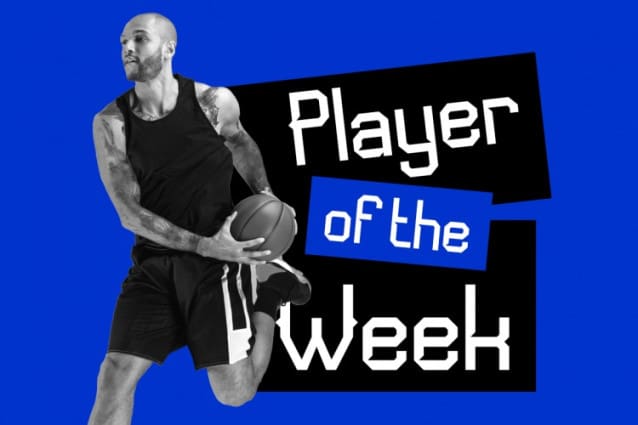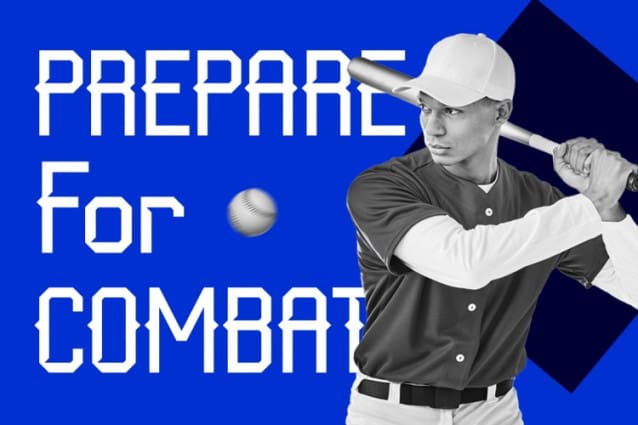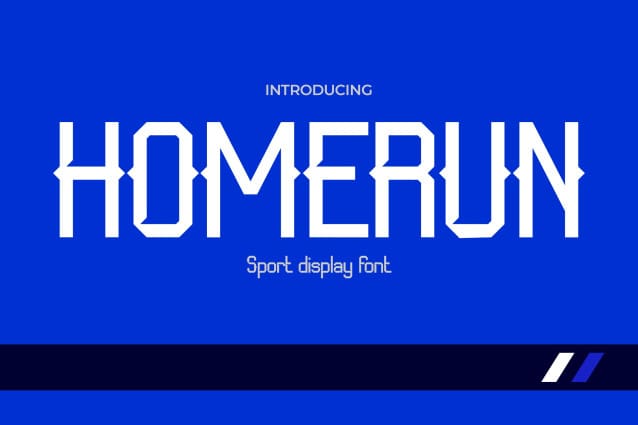
Homerun Display Font
Homerun Display Font is the font that lets you score big with its sporty retro charm. Tailor-made for sport posters, logos, and merchandise, Homerun brings an energetic and dynamic vibe to your designs. Channel the spirit of champions and embrace the vintage allure of Homerun as it amplifies your athletic-themed creations. With its bold and powerful letterforms, this font conveys a sense of triumph and victory.
Whether you’re designing for a sports team, championship event, or athletic merchandise, Homerun hits the bullseye every time. Step onto the field of creativity and let Homerun be your winning shot. Captivate your audience with the timeless allure of sporty retro designs and elevate your projects to victory with Homerun!